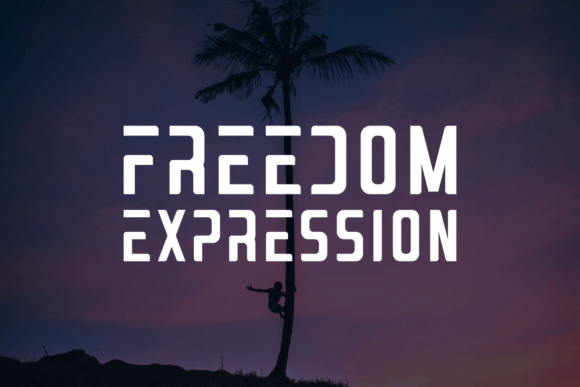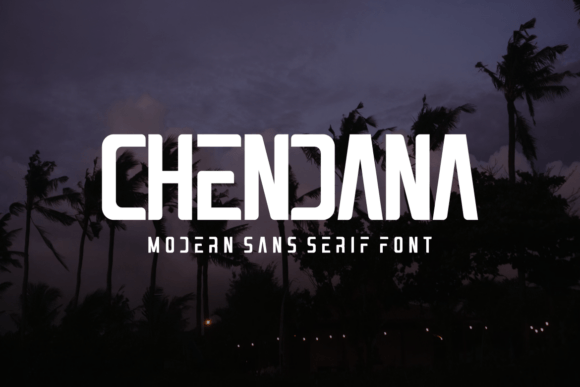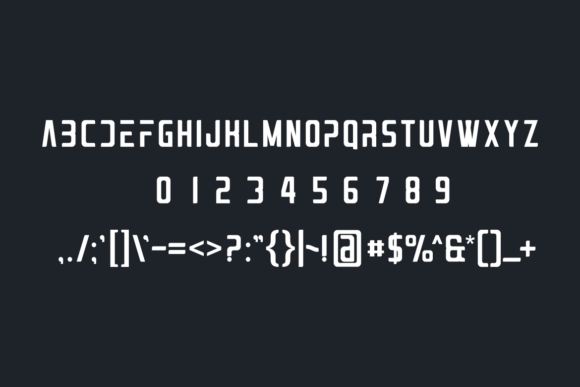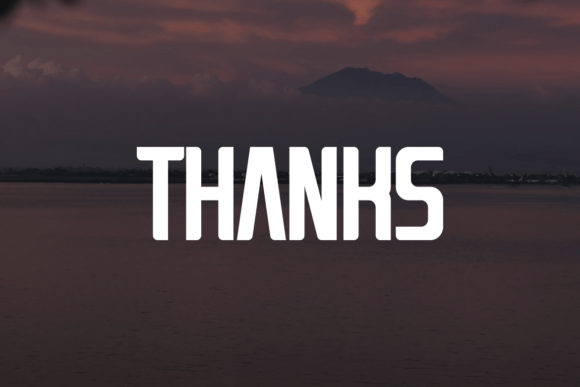
Introducing Chendana Font: The Epitome of Modern Minimalism
In the realm of typography, fonts play a pivotal role in conveying the essence of a brand, product, or creative project. Among the myriad of fonts available, the Chendana Font stands out as a beacon of modernity and minimalism. This futuristic sans-serif font is meticulously designed to cater to the needs of designers, crafters, and innovators who seek to make a statement with their visual creations.
The Design Philosophy of Chendana Font
Chendana Font embodies a design philosophy that revolves around simplicity, clarity, and a touch of futurism. Its geometric style, characterized by unique cuts and clean lines, lends it a distinctive edge that is both contemporary and forward-thinking. This font is not just a typographic choice; it’s a statement that reflects a project’s commitment to innovation and elegance.
Versatility and Application
One of the key strengths of the Chendana Font is its versatility. Its applications are vast and varied, making it an ideal choice for multiple creative and professional projects. Here are some areas where Chendana Font truly shines:
• Technology Branding: For tech startups and established companies alike, Chendana offers a fresh and modern look that can instantly elevate a brand’s visual identity.
• Sci-Fi Posters: The futuristic vibe of Chendana makes it a perfect fit for sci-fi themed posters, adding a touch of otherworldliness and intrigue.
• Product Design: When it comes to product design, especially for tech gadgets and innovative products, Chendana’s sleek and minimalist aesthetic helps in creating a visually appealing and cohesive look.
• Innovative Projects: Any project that aims to showcase a forward-thinking approach, such as green tech, space exploration, or cutting-edge research, can benefit from the modern and clean look of Chendana Font.
Why Choose Chendana Font?
Choosing a font for a project can be a daunting task, given the plethora of options available. However, Chendana Font offers several advantages that make it a compelling choice:
• Unique Aesthetic: Its geometric style and unique cuts set it apart from more traditional fonts, offering a distinctive look that can help a project stand out.
• Legibility: Despite its minimalist approach, Chendana maintains high legibility, ensuring that messages are conveyed clearly and effectively.
• Flexibility: Chendana can be used across various platforms and mediums, from digital interfaces to print materials, without losing its impact.
• Modern Appeal: For projects aiming to convey a sense of modernity and innovation, Chendana’s futuristic design elements are unmatched.
Tips for Using Chendana Font Effectively
To maximize the impact of Chendana Font in your projects, consider the following tips:
• Pair with Complementary Fonts: When combining Chendana with other fonts, opt for those that complement its minimalist and geometric style to maintain visual coherence.
• Adjust Weight and Size: Experiment with different weights and sizes to create visual hierarchy and emphasize key information.
• Consider Color Contrast: Ensure that the color scheme you choose provides sufficient contrast with the font to maintain readability across different backgrounds and mediums.
The Chendana Font is more than just a typographic choice; it’s a design statement that speaks to the essence of modernity and innovation. Its unique blend of minimalism, geometric style, and futuristic appeal makes it an invaluable asset for designers and crafters looking to imbue their projects with a contemporary edge. Whether it’s for technology branding, sci-fi posters, product design, or any innovative venture, Chendana Font is poised to leave a lasting impression.